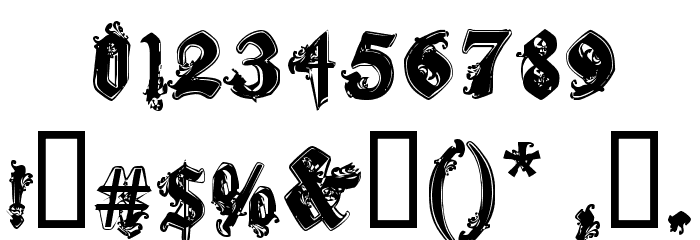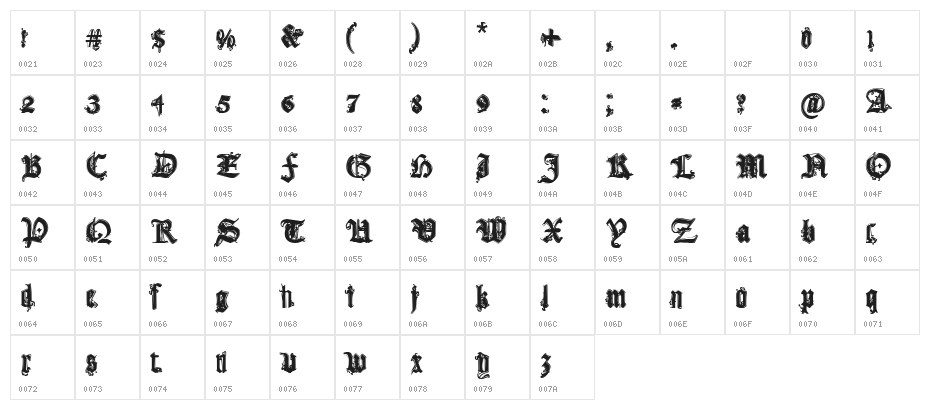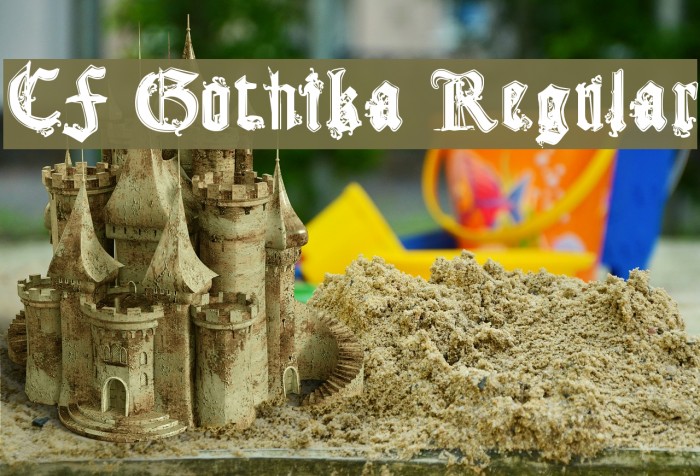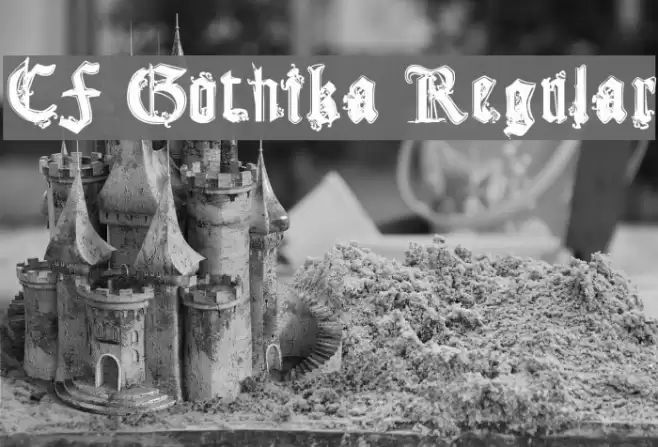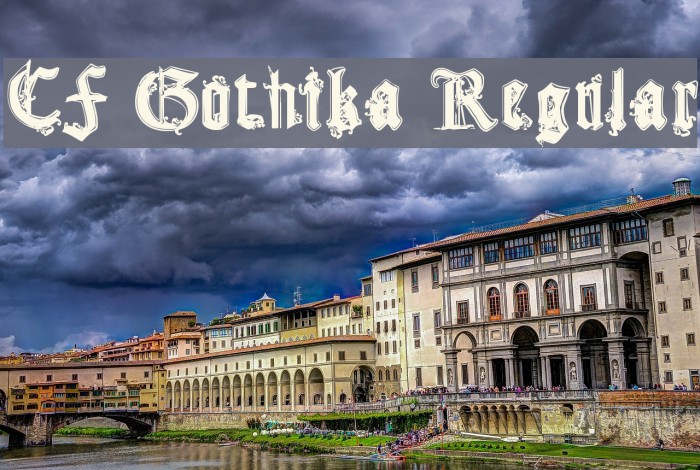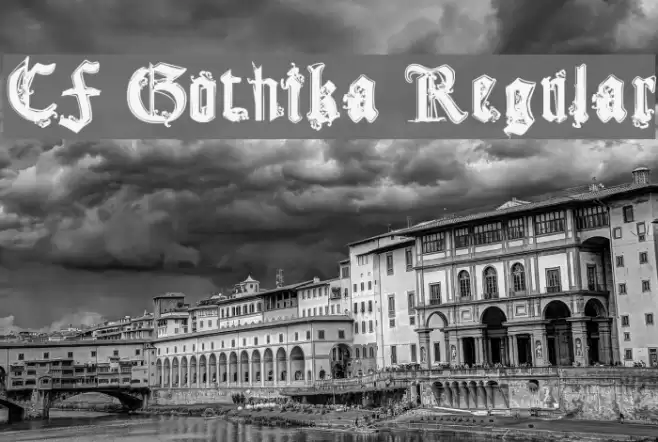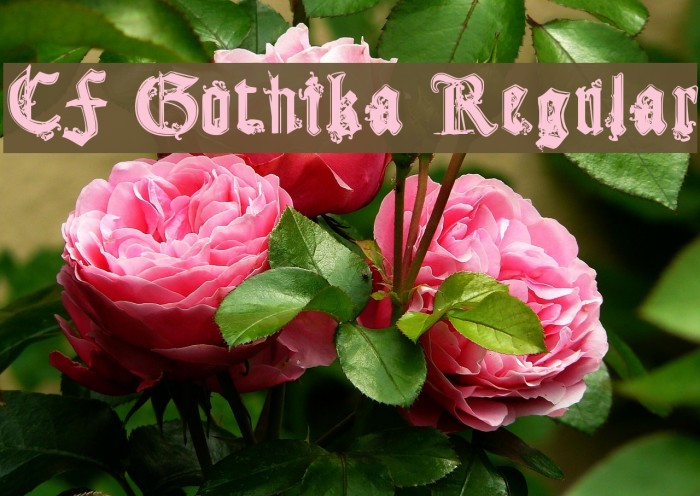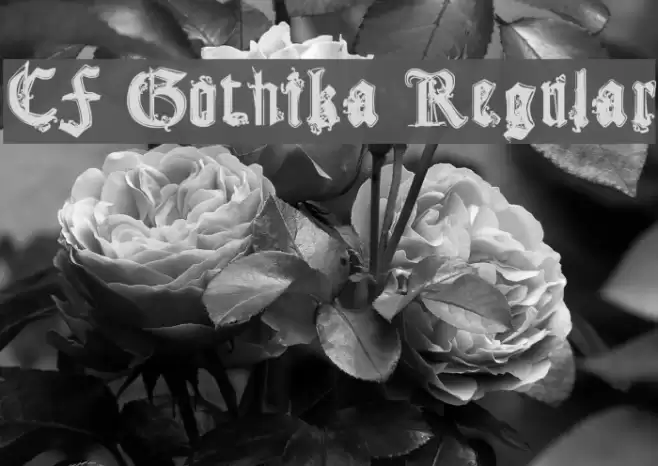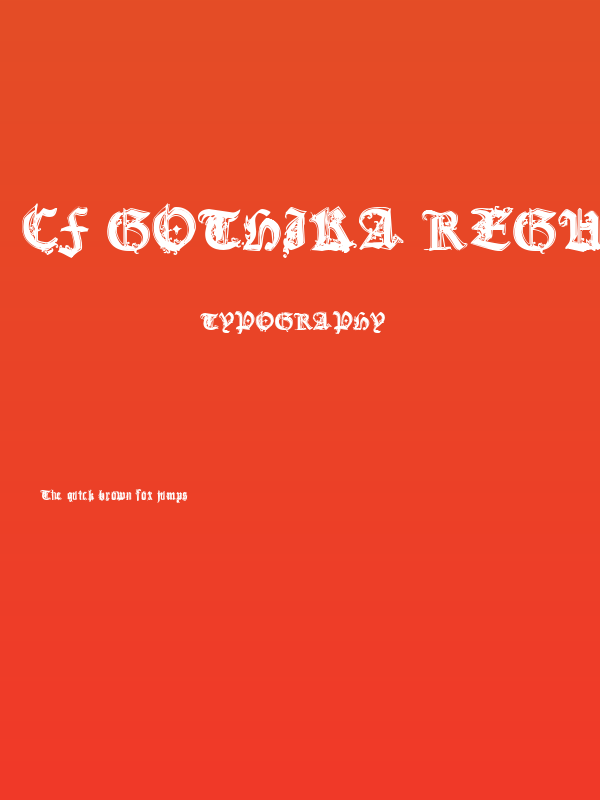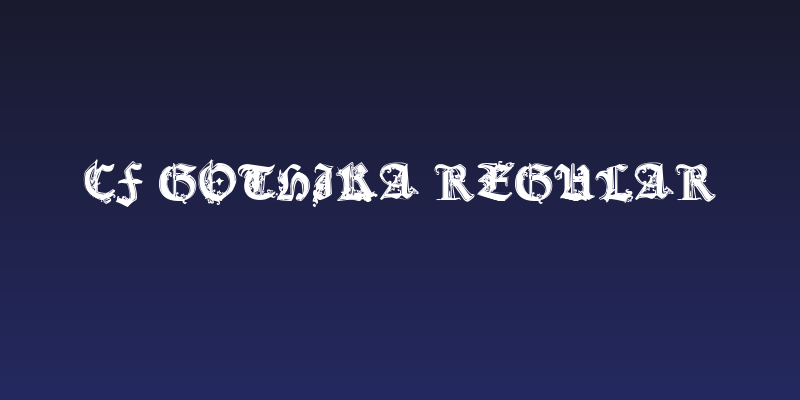
CF Gothika Regular Font
CF Gothika Regular Description
This font embodies a classic Gothic style with intricate detailing and ornamental flourishes. Each character is designed with a bold, dramatic flair, featuring sharp edges and elaborate embellishments that evoke a sense of historical elegance. The uppercase letters are particularly ornate, with swirling accents that add a touch of sophistication. The lowercase letters maintain the same decorative theme, ensuring consistency throughout the typeface. Numbers and special characters are equally stylized, making this font suitable for projects that require a distinctive and eye-catching appearance. The overall design is reminiscent of medieval script, offering a unique blend of tradition and artistry.
| Proposed Projects | Ideal for projects such as vintage posters, historical event invitations, fantasy book covers, and themed branding. |